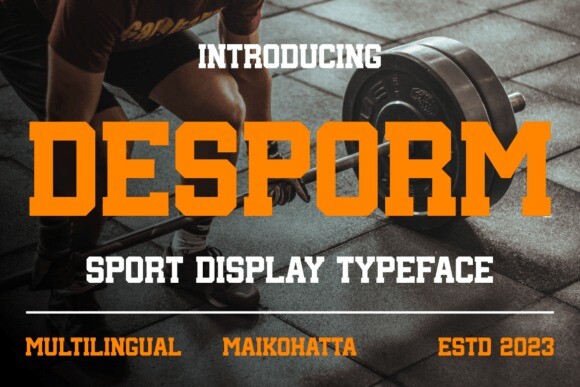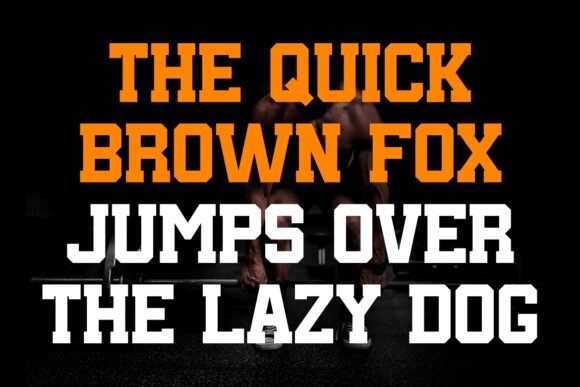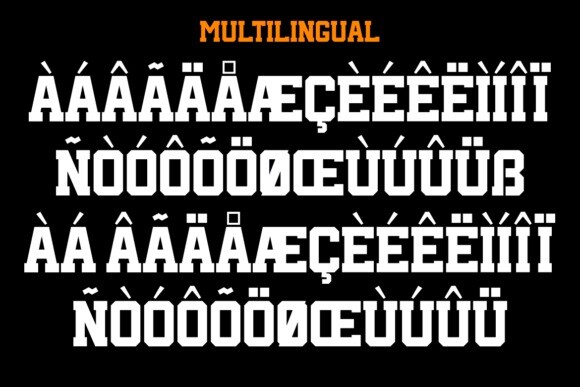
Desporm Font
Desporm Font,This font was designed to reflect the dynamic spirit, energy and toughness often associated with physical activity and sports. Desporm can be used in brand identities of sports teams, sports companies, and major sporting events.